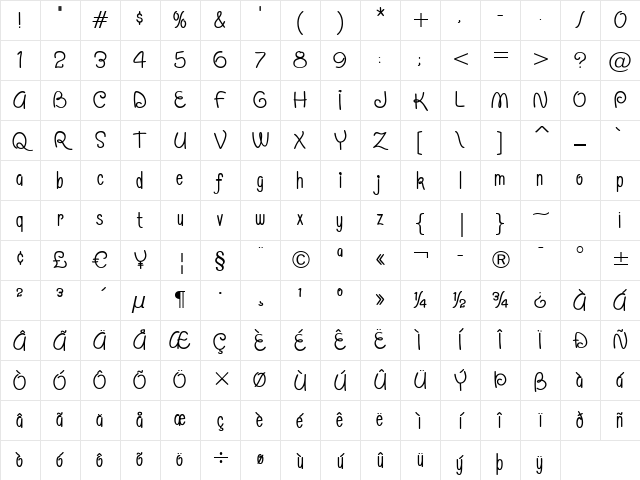
Morning Limerick BTN Cond Regular
Design Context for Morning Limerick BTN Cond
Morning Limerick BTN Cond is a composed and adaptable typeface that performs quietly and consistently across a wide range of design contexts. Its narrow stance lets it pack a punch even in space-constrained designs.
Pro Tip: Use Morning Limerick BTN Cond in both headline and body roles to test its range before committing to a single application.